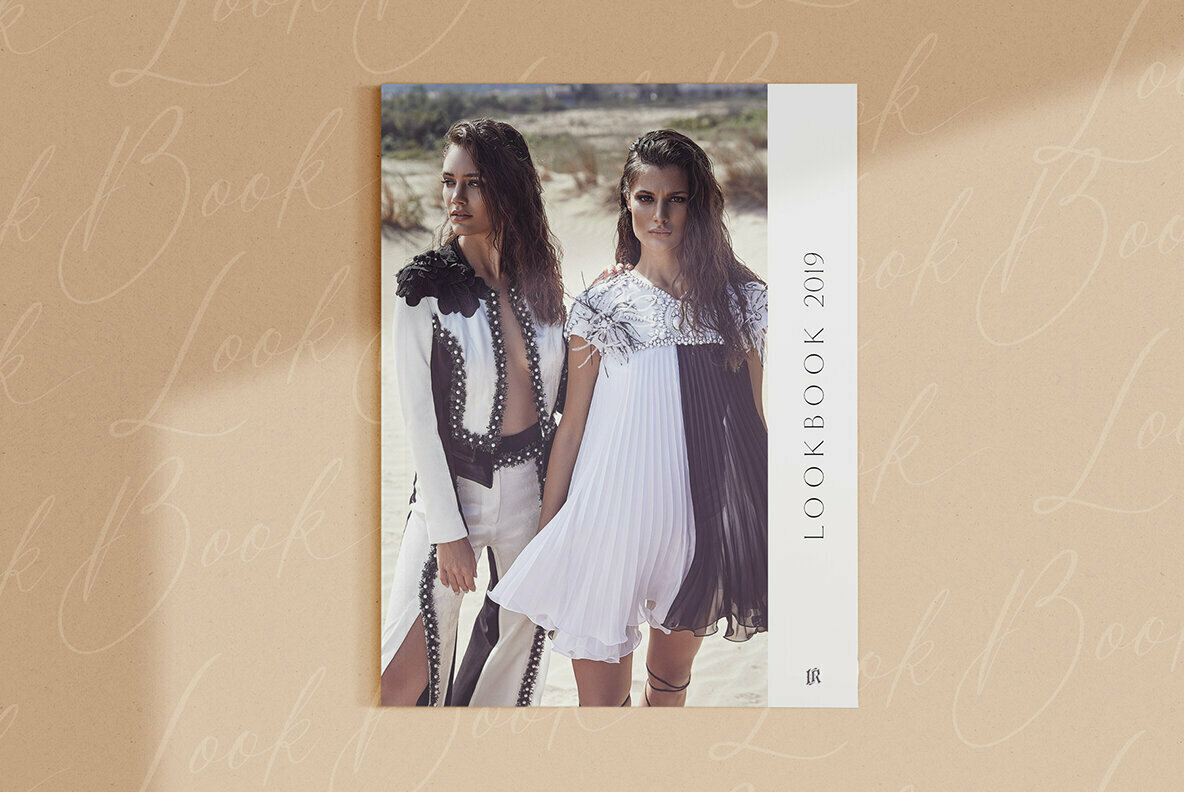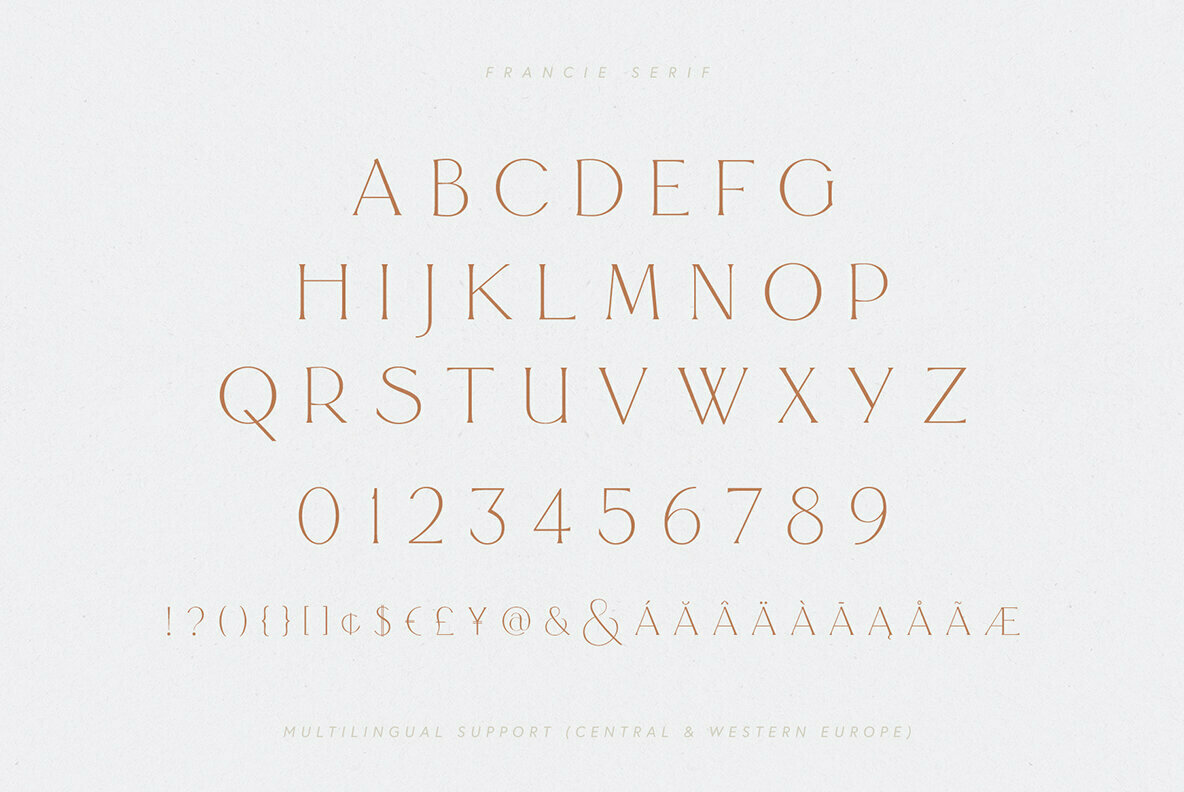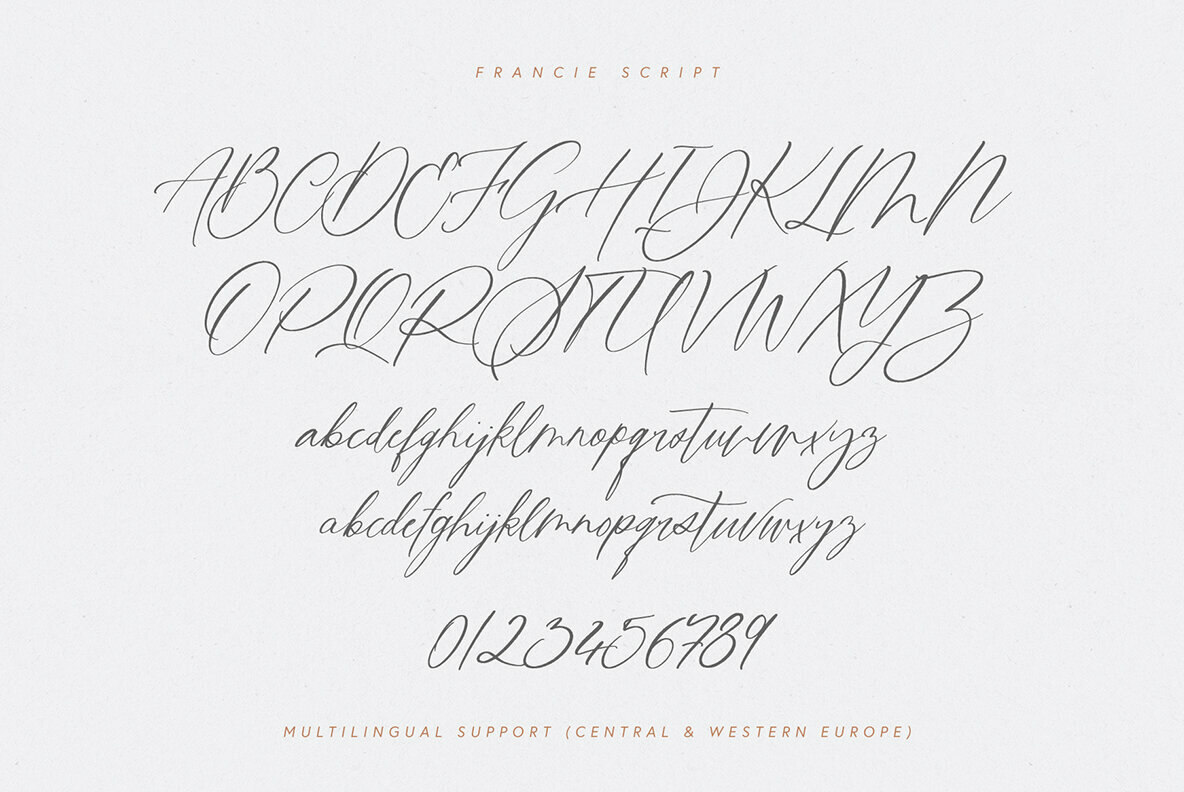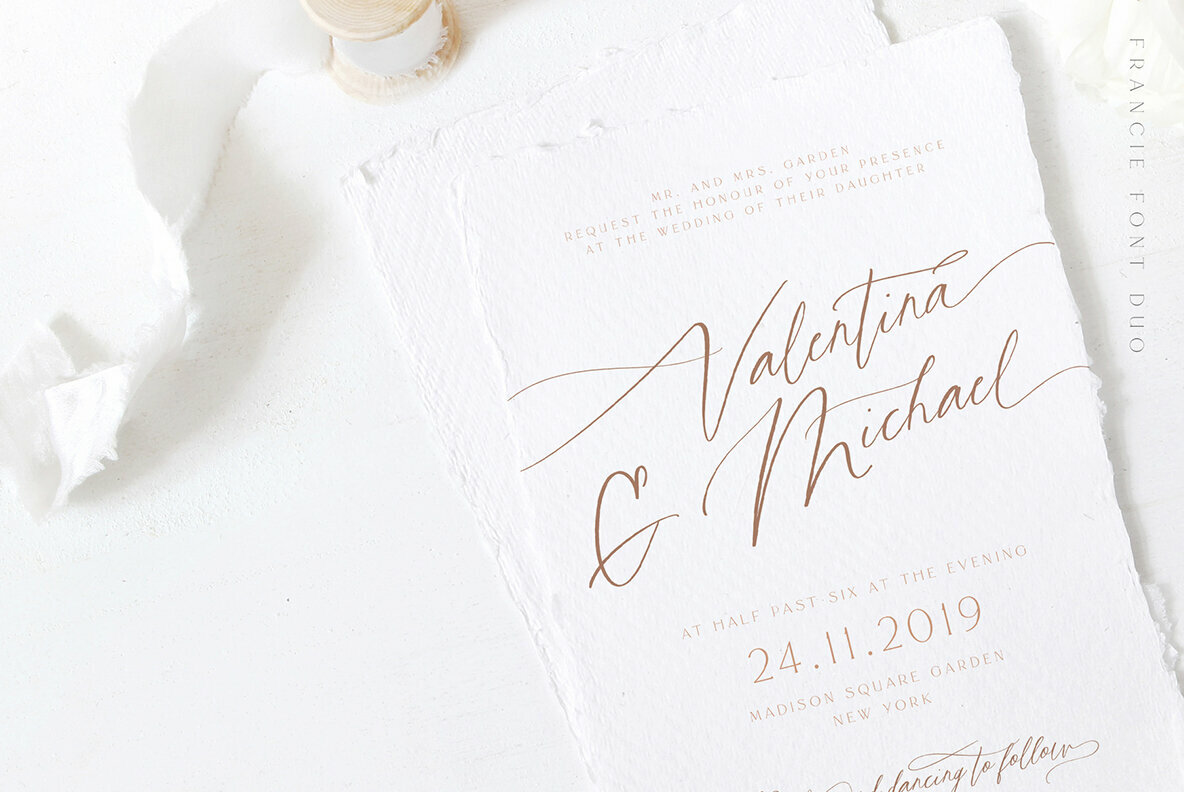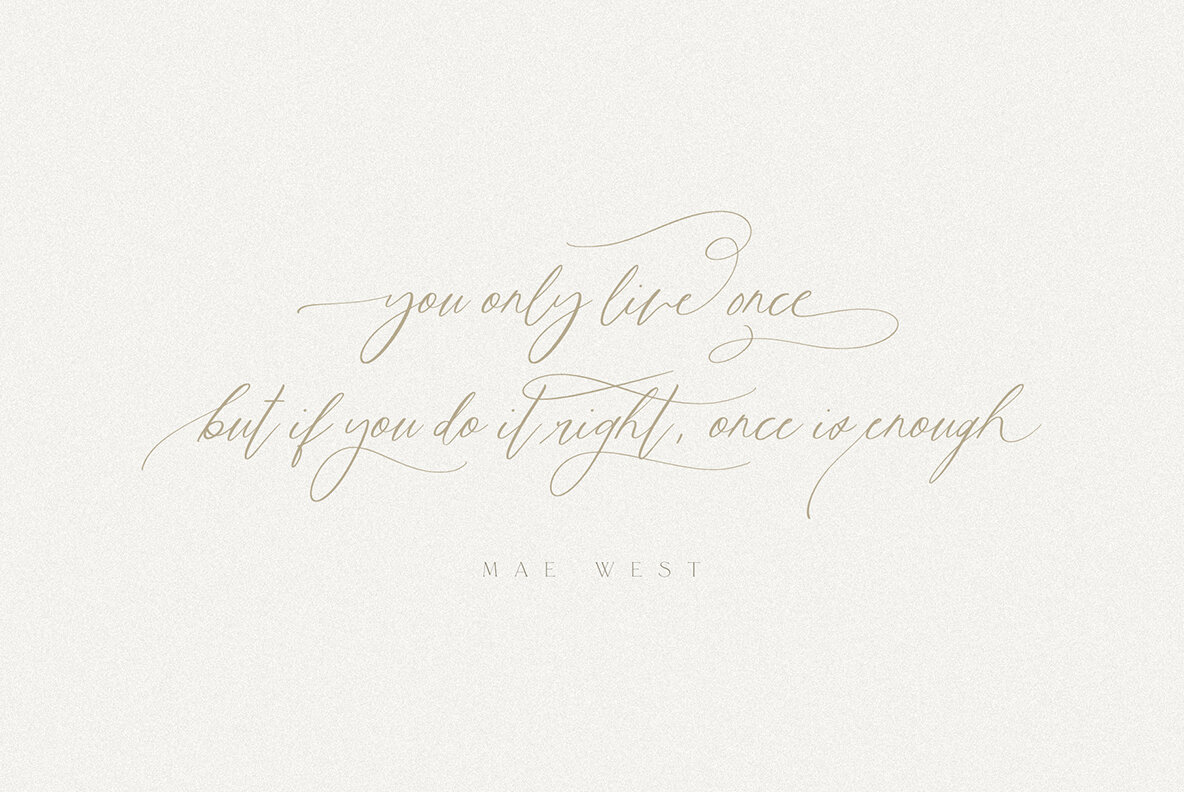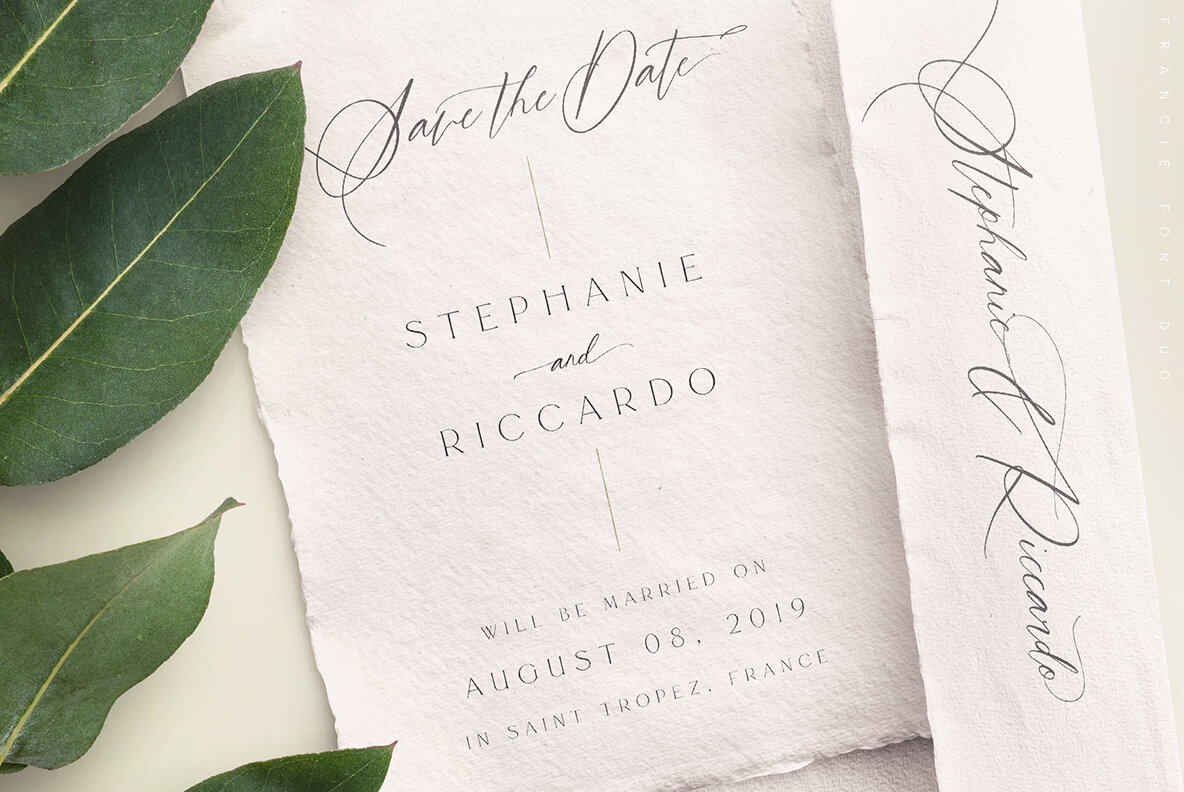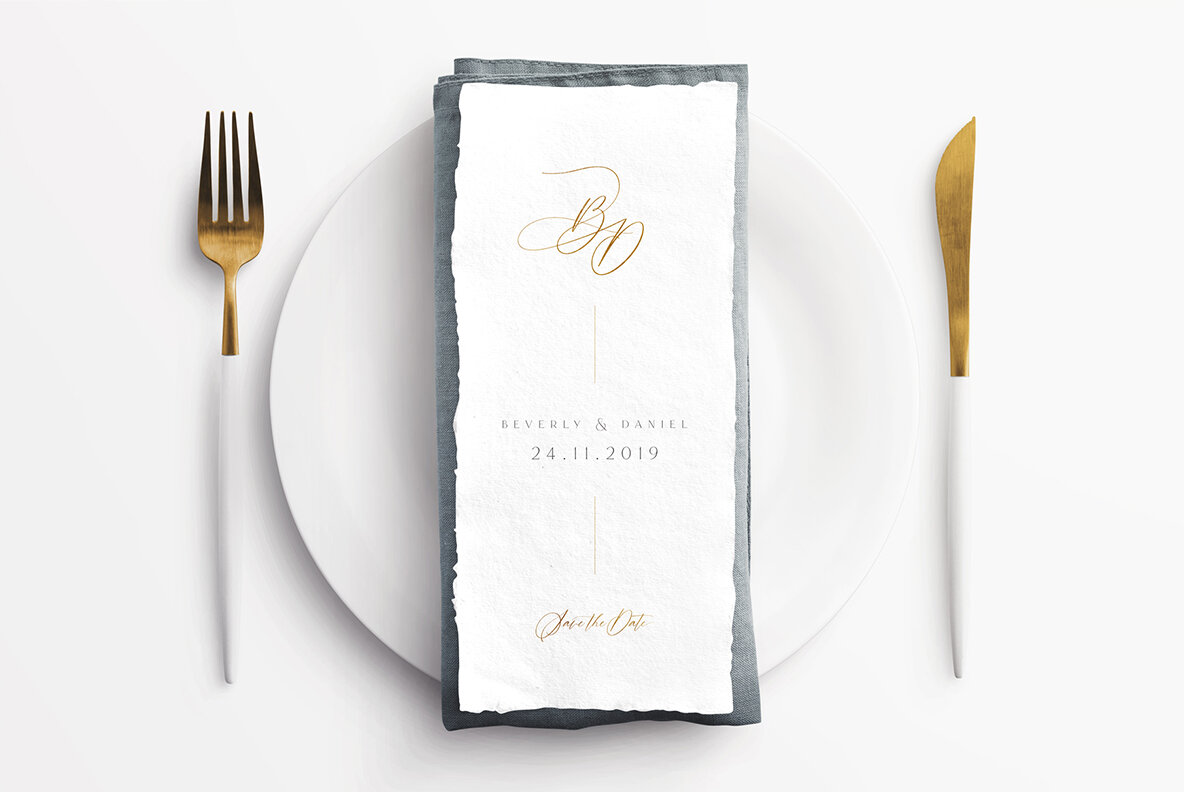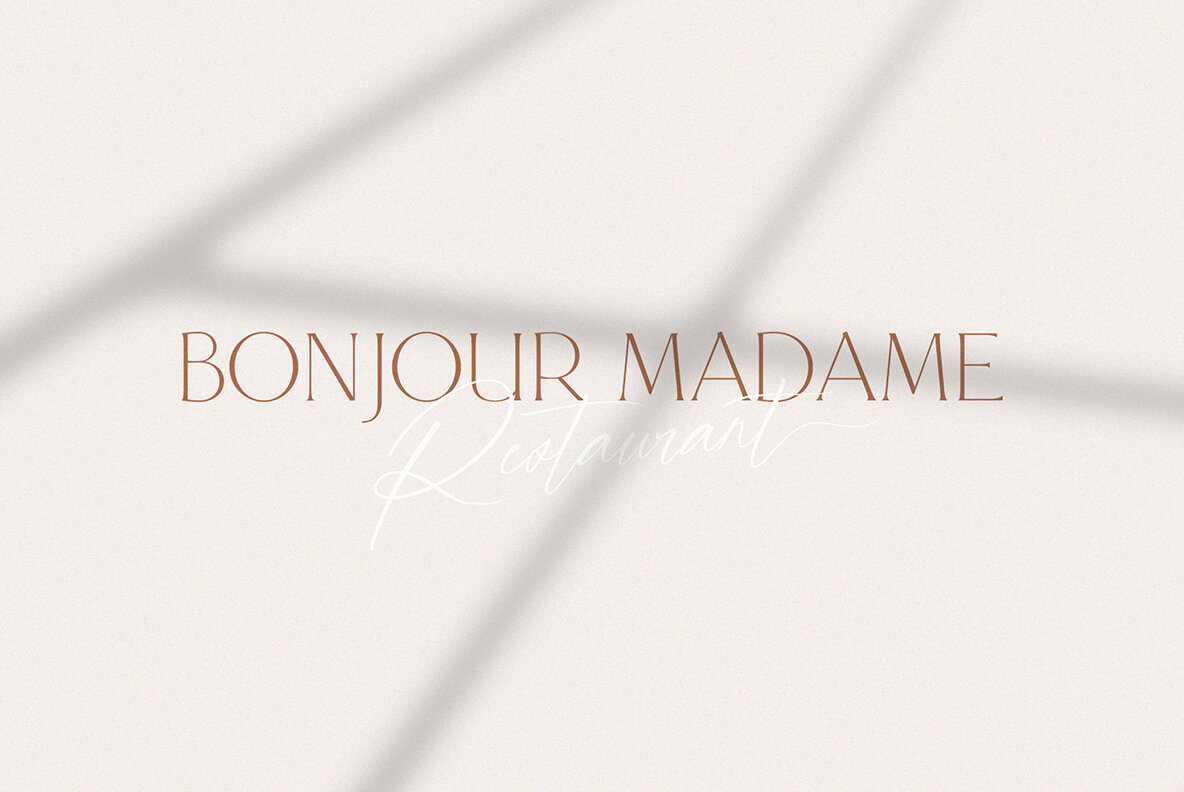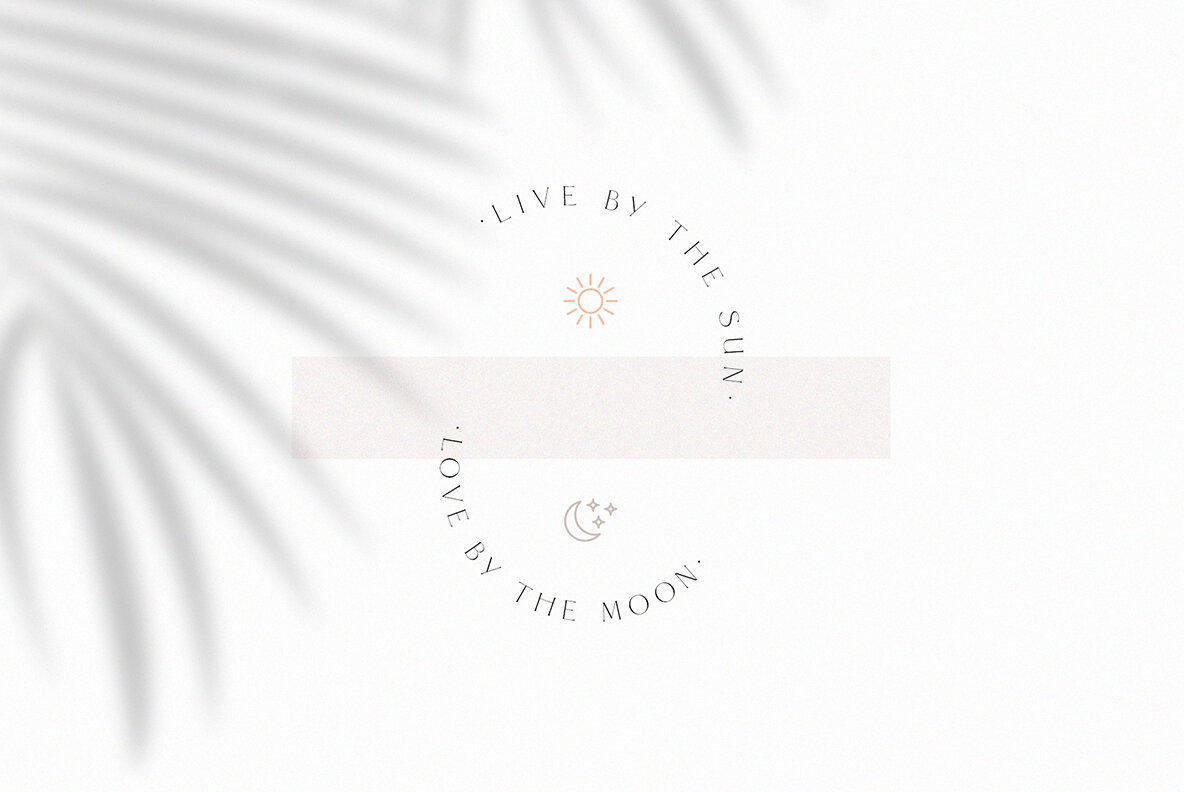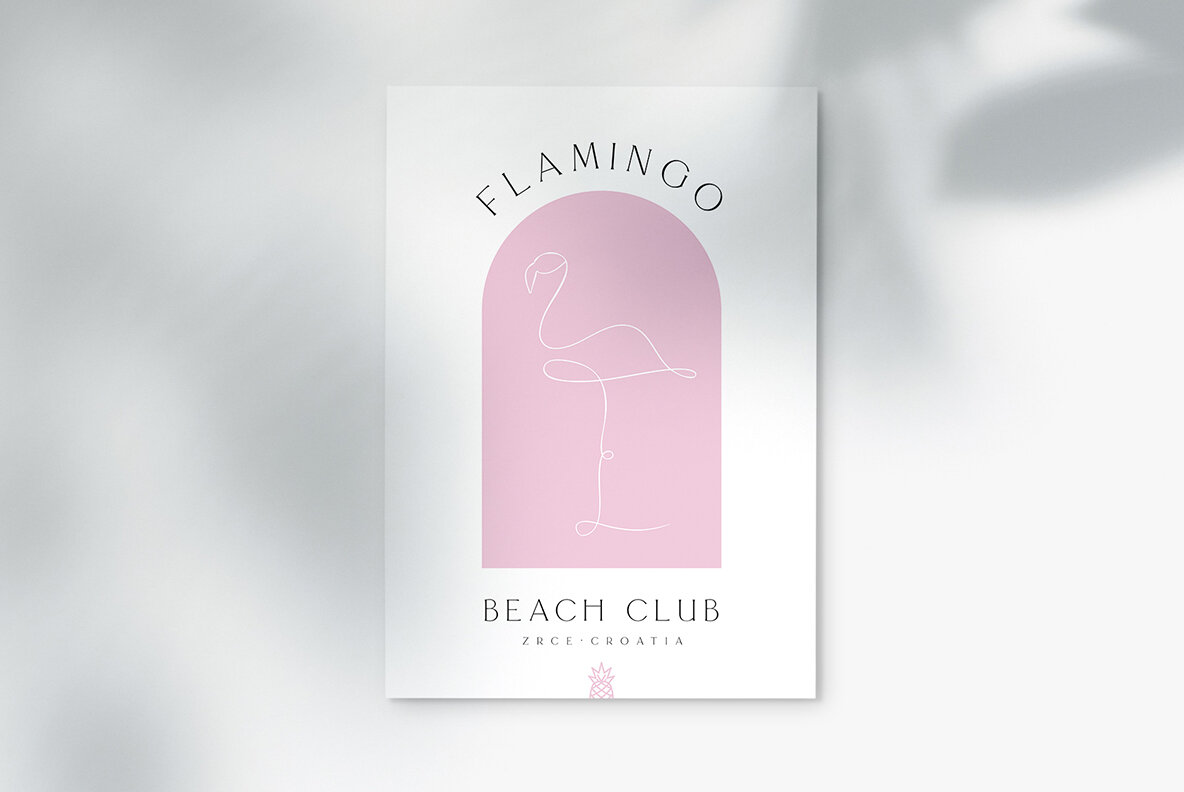
Francie Font Duo
Francie Font Duo is a modern calligraphy font with perfect serif pair. These are ideal for fashion, blog website, instagram, branding, invitations, business cards, weddings and many more.
Script version also includes alternate characters for both UPPERCASE AND LOWERCASE letters, beginning ending swashes for all lowercase letters, ligatures and stylistic alternates for different styles.
Supported Languages: Francie Font Dou has support for Western and Central Europe.